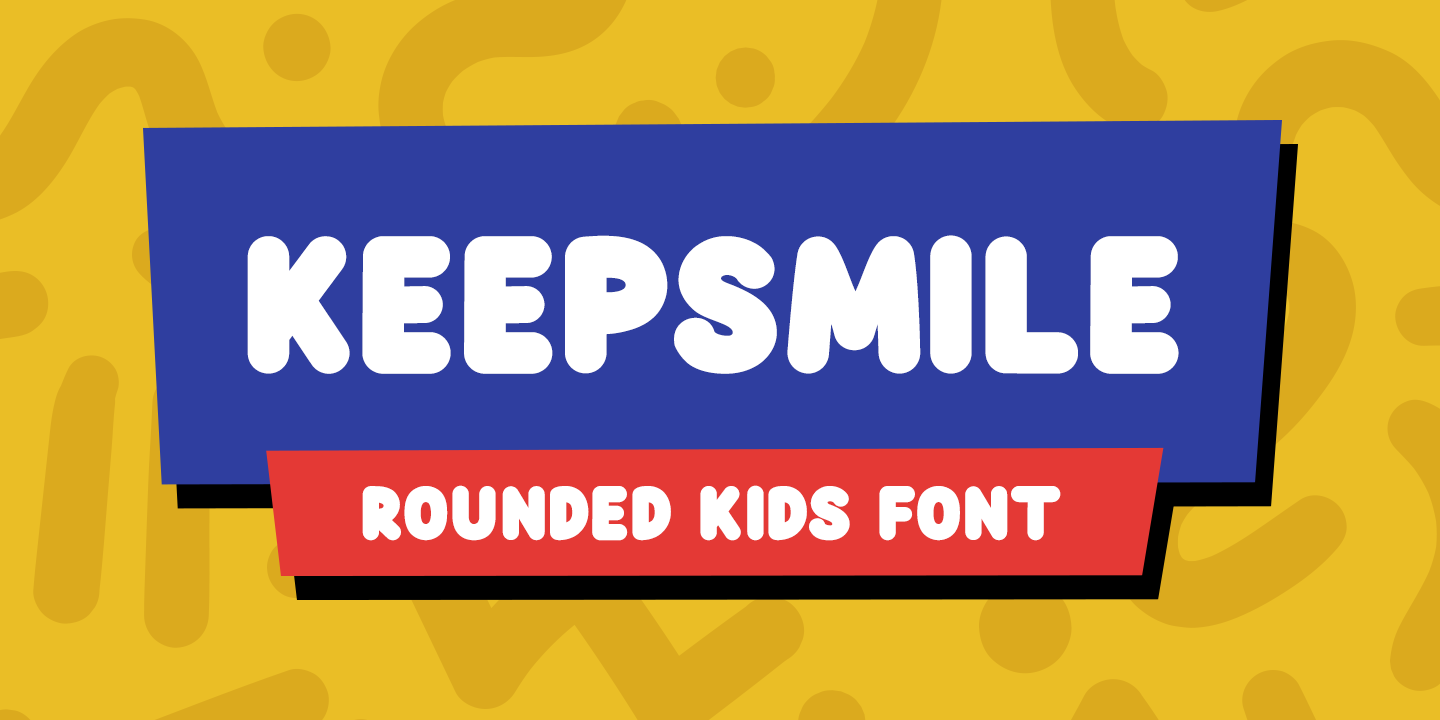
The Keepsmile Font Free Download is an incredibly cheerful and inviting typeface, making it an excellent choice for designs that aim to convey happiness, playfulness, and a heartwarming, friendly aesthetic. This delightful font is perfectly suited for children's brands, toy packaging, sweet shop signage, birthday invitations, positive social media graphics, and any project focused on joy and optimism. Imagine it adding a joyful bounce to a kindergarten poster, providing a comforting and legible feel for a local bakery, or giving a uniquely adorable vibe to a family-oriented website. Its soft, rounded forms and distinctive, cheerful appearance ensure your message is delivered with warmth and an undeniable sense of genuine appeal.
What makes Keepsmile Font truly exciting is its ability to instantly infuse designs with a feeling of gentle comfort and heartfelt sincerity. It's not just a basic display font; it embodies an organic softness and a friendly character that makes it incredibly appealing. The slightly playful forms and smooth curves give it an authentic, approachable feel, as if lovingly crafted. Designers will appreciate how easily it brings an unpretentious, comforting touch to any project, making it ideal for designs that need to feel friendly, engaging, and visually inspiring with a touch of tender elegance.
The Keepsmile Font family typically offers a range of weights and styles to provide maximum flexibility for designers, allowing for various applications from headlines to body text. You can often find variations such as Light, Regular, Medium, and Bold, each providing a different level of visual impact for creating strong typographical hierarchies. Some versions might also include Italic styles, further enhancing its utility for emphasis and stylistic variation. These comprehensive options ensure that the Keepsmile Font Free Download empowers designers to create truly charming, comfortable, and visually captivating designs that resonate with warmth and a sense of inviting simplicity.